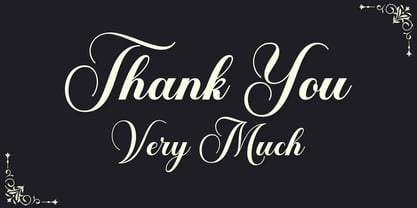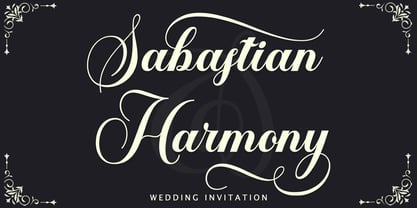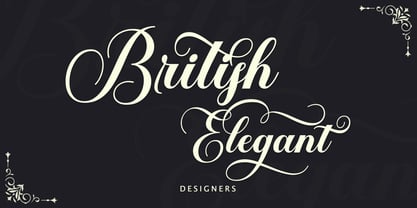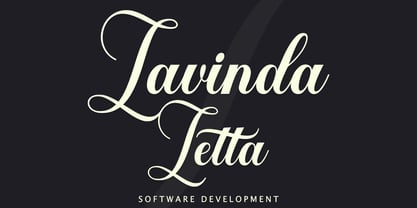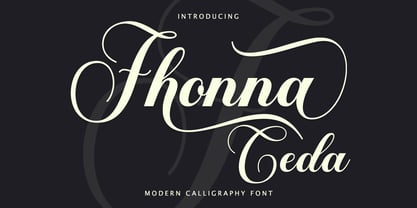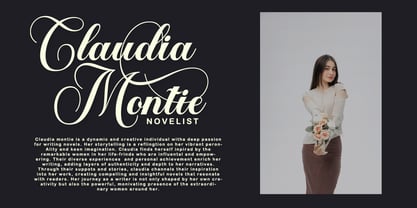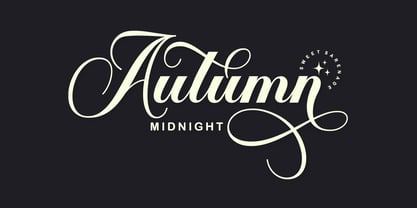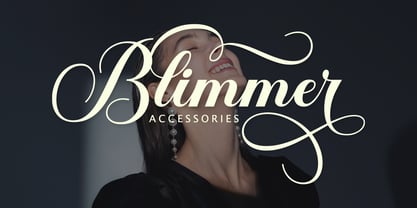
Fhonna Ceda Script
The Fhonna Ceda Script Font Family was designed by Nanda Putra Sukmayadi and published by Strong. Fhonna Ceda Script contains 1 styles. More about this family
Fhonna Ceda Script is a calligraphy script font that comes with very beautiful changing characters, a kind of classic decorative copper script with a modern touch, designed with high detail to bring stylish elegance. Fhonna Ceda Script is attractive as a typeface that is smooth, clean, feminine, sensual, glamorous, simple and very easy to read, because there are many fancy letter connections. I also offer a number of viable style alternatives for many letters. The classic style is perfect to be applied in various formal forms such as invitations, labels, restaurant menus, logos, fashion, make up, stationery, novels, magazines, books, greeting / wedding cards, packaging, labels or any type of advertising purpose.